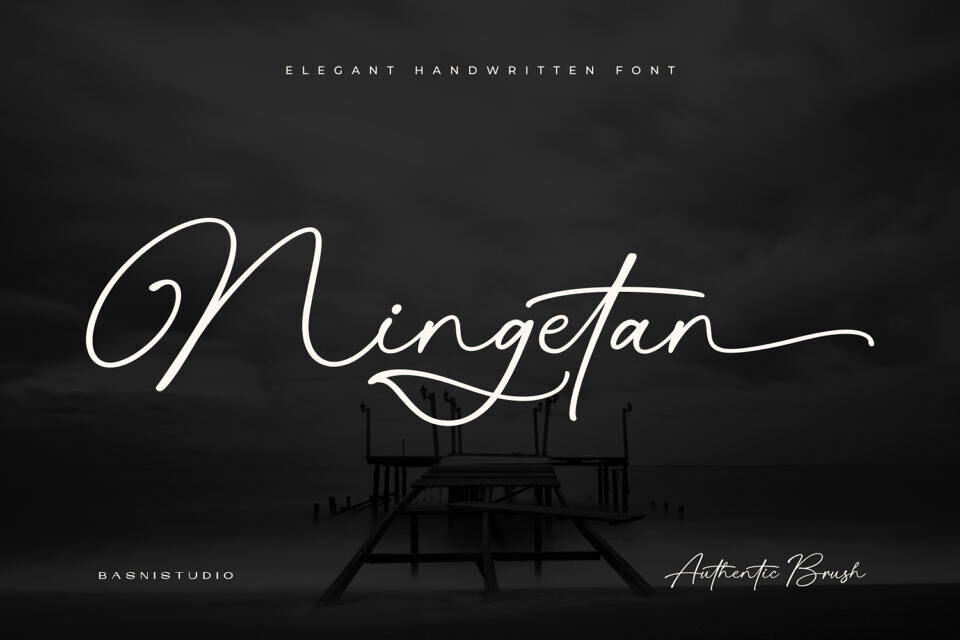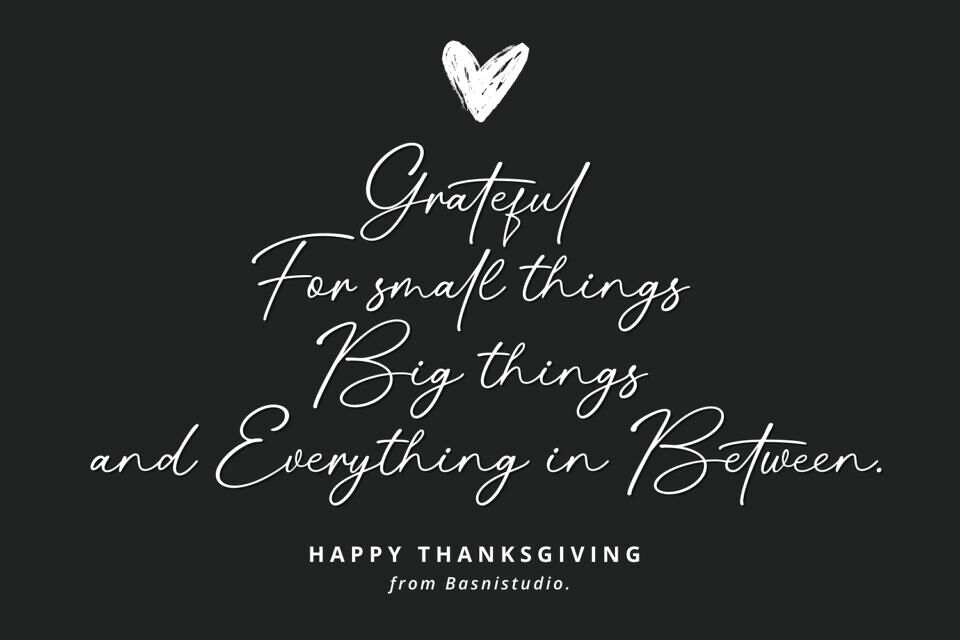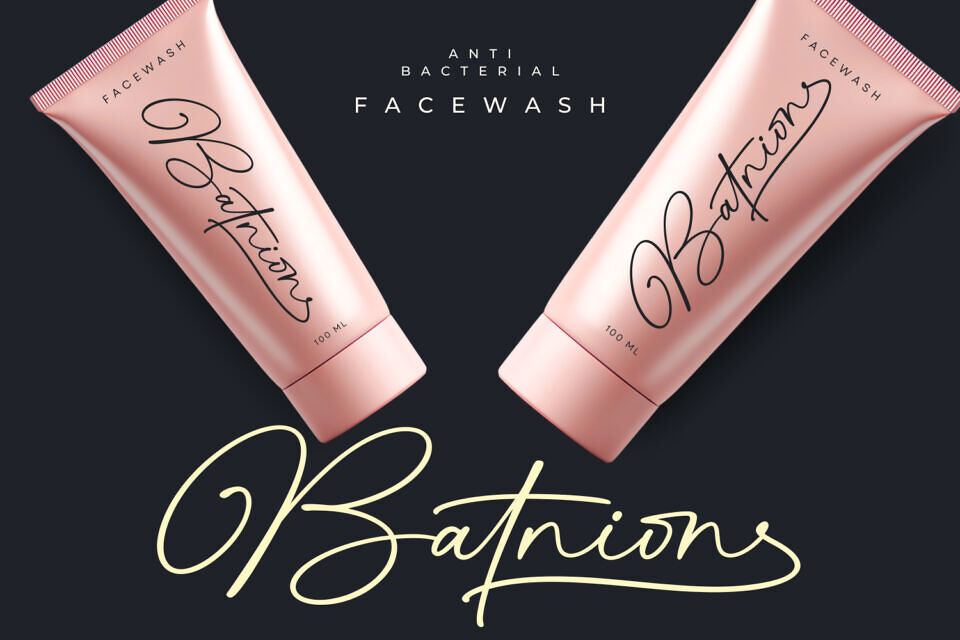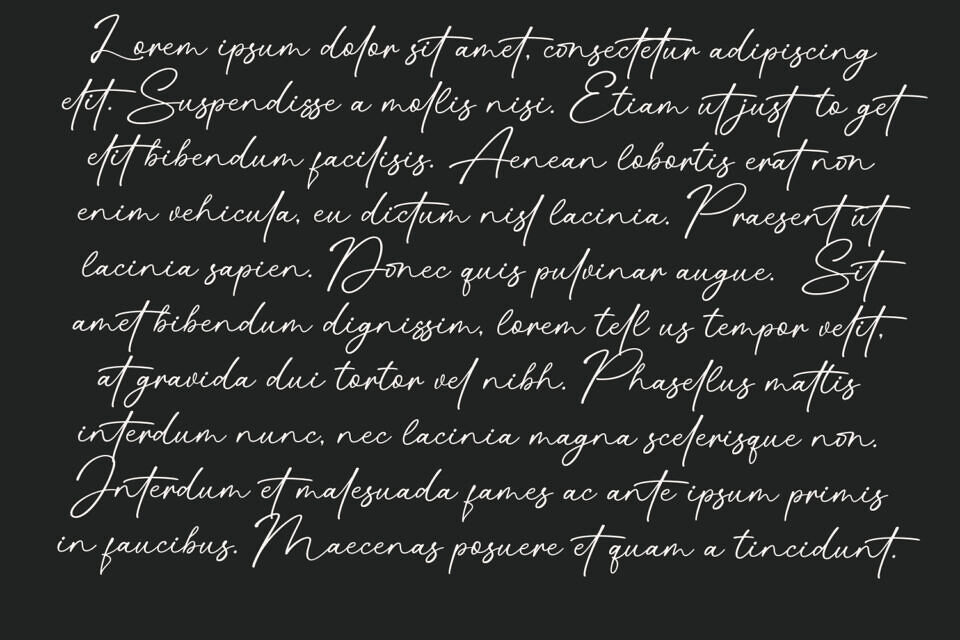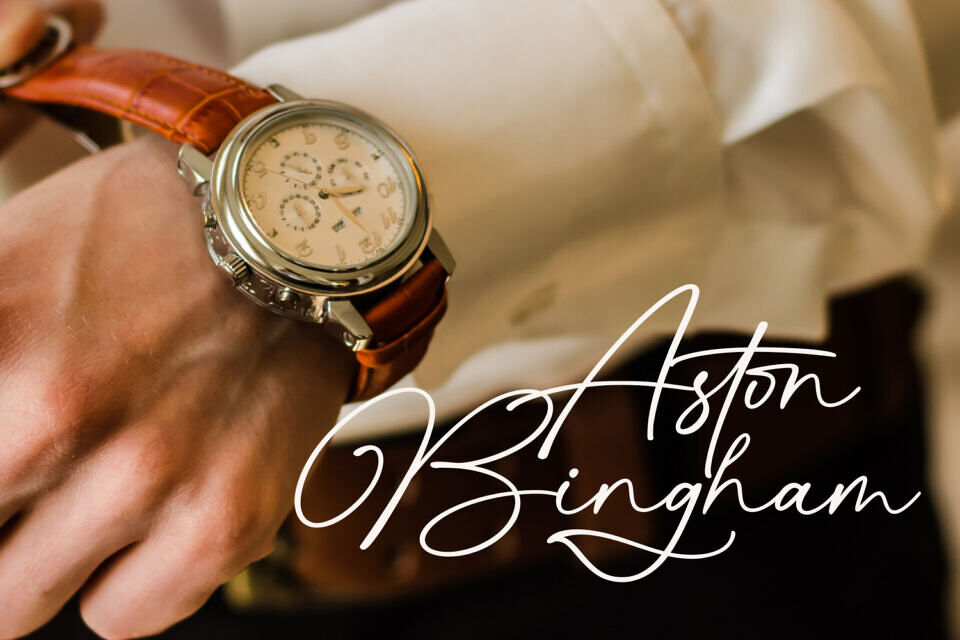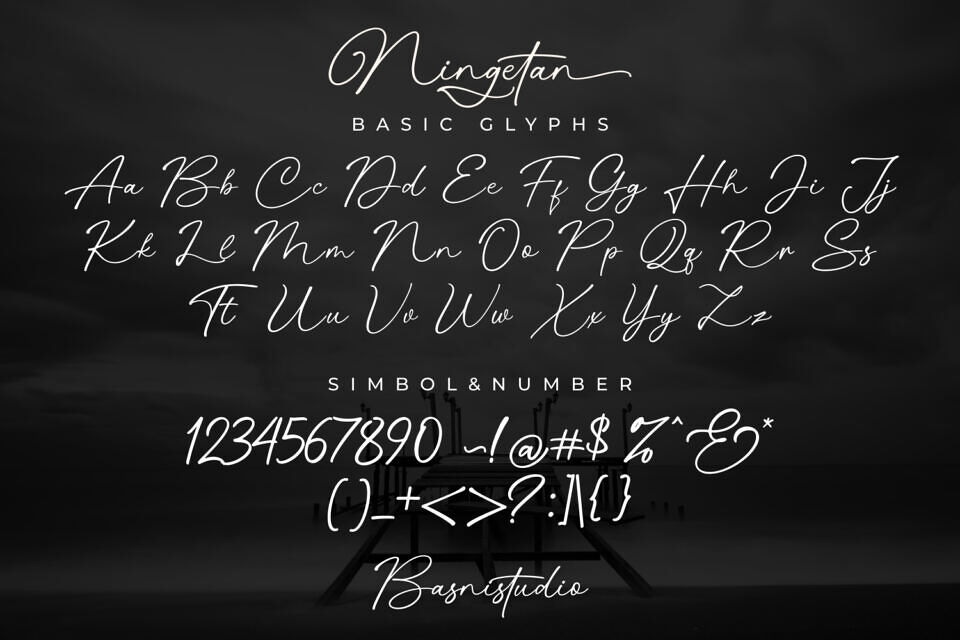
Ningetan Font
Introducing Ningetan Elegant Handwritten Font Design with a luxurious character. Every letter is carefully crafted to deliver a polished and professional look.
Ideal for branding, product packaging, social media, and magazine design, it’s the perfect choice for brands that want to stand out with subtle elegance.